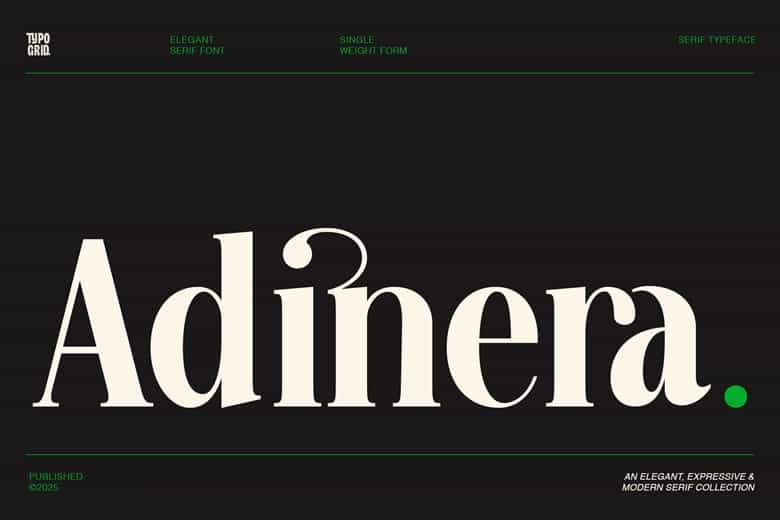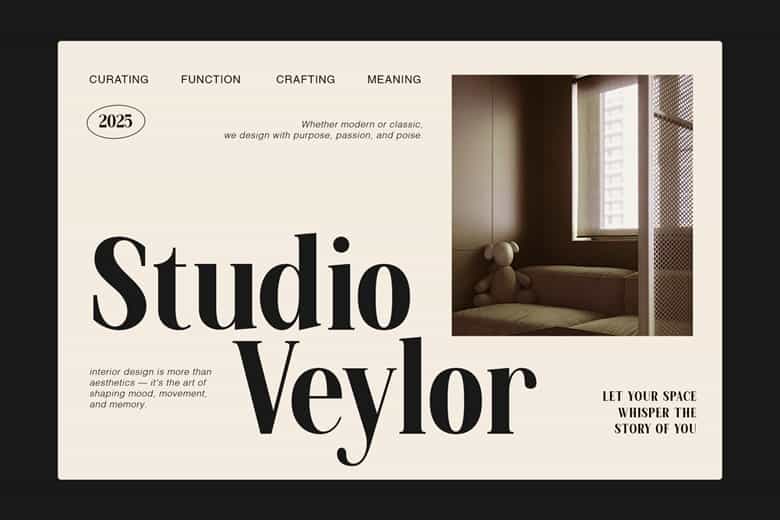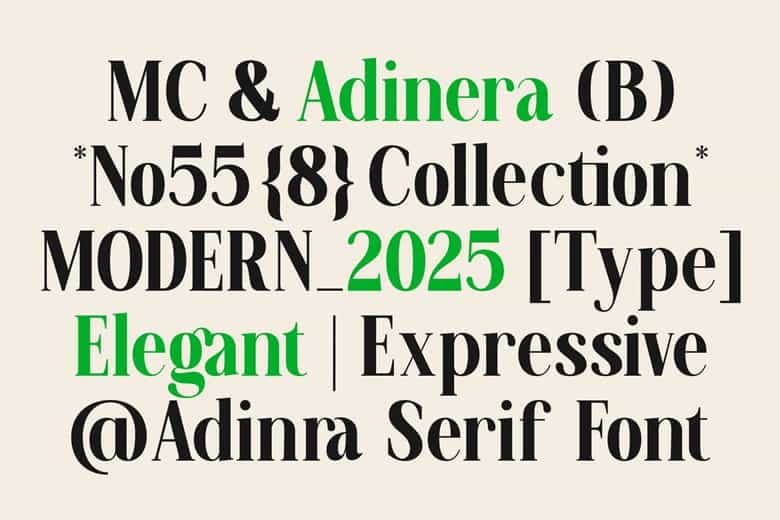
Adinera is a new serif font that employs classic elegance and contemporary style. A strong contrast of the strokes, a beautiful sculptural letter, and his sharp serifs give a luxury impression with a touch of editorial daring that would make any fashion, branding, and lifestyle design project look spectacular.